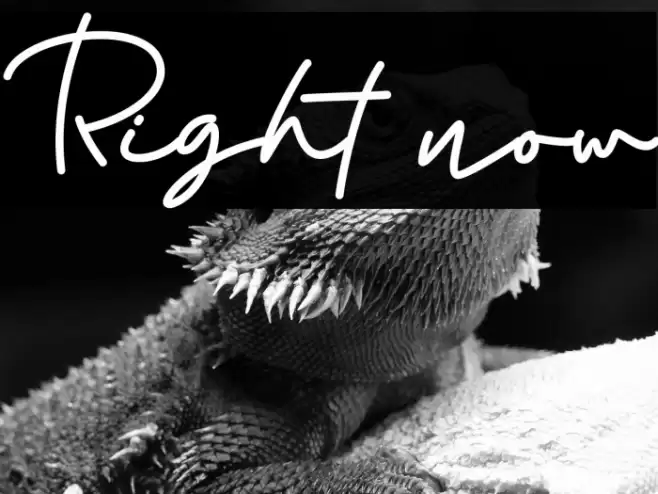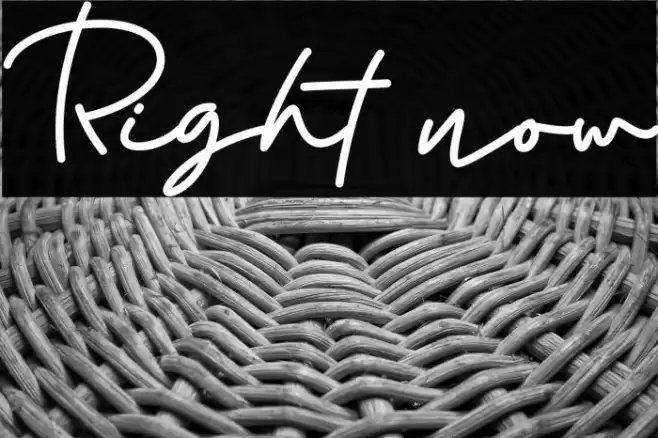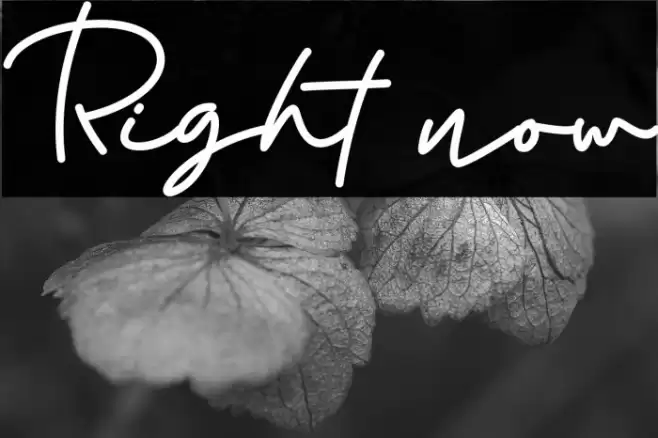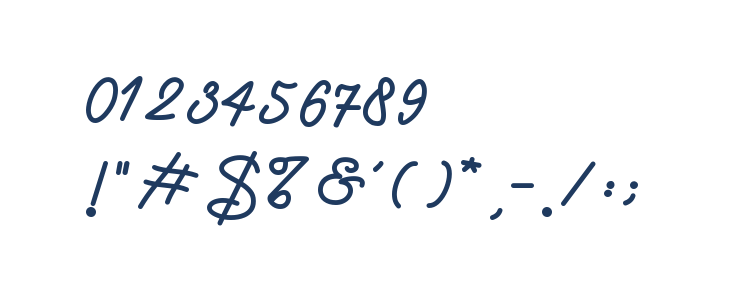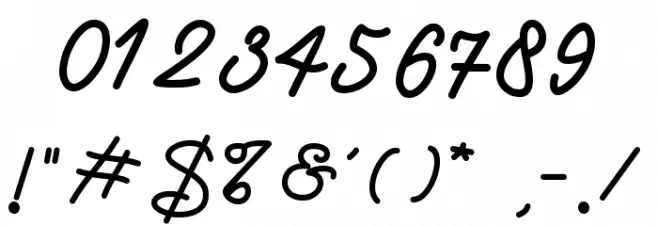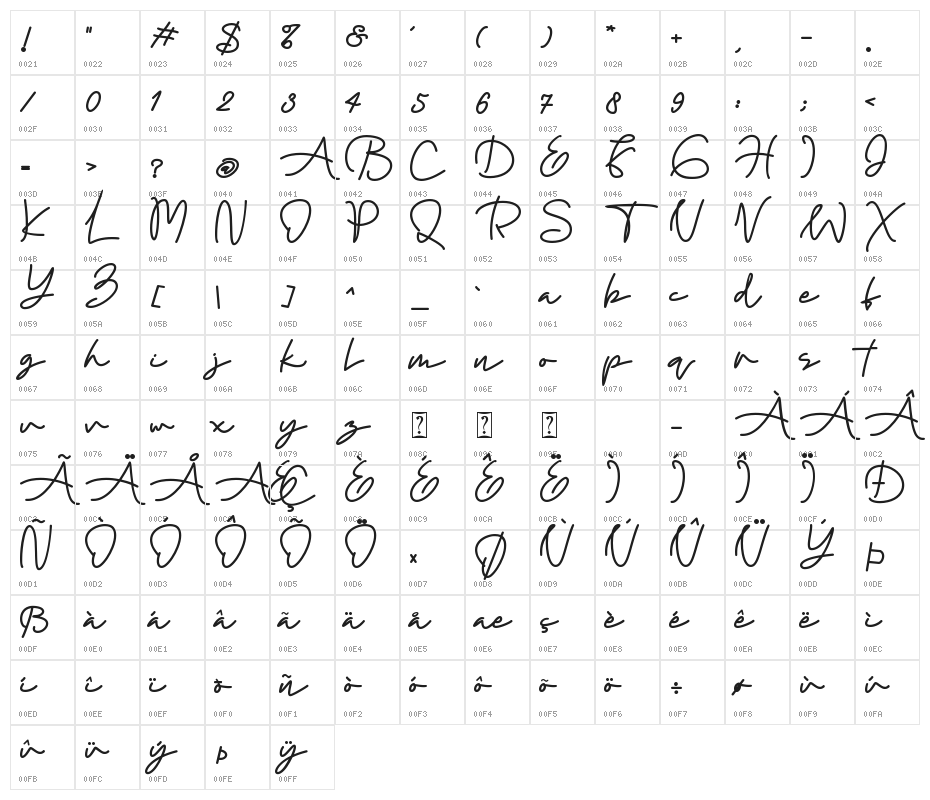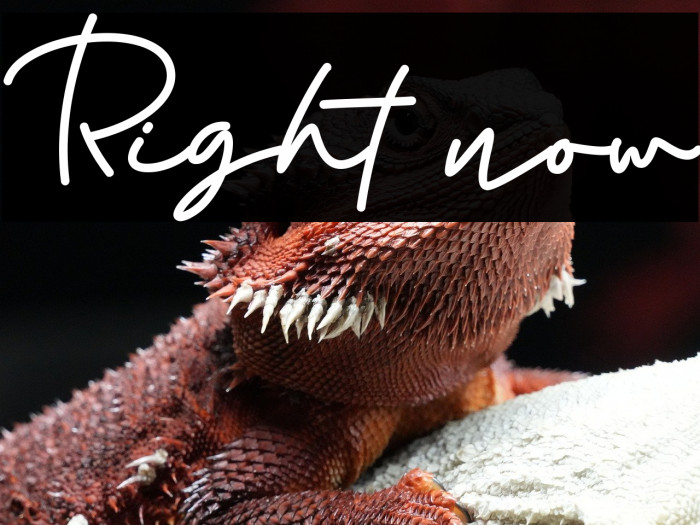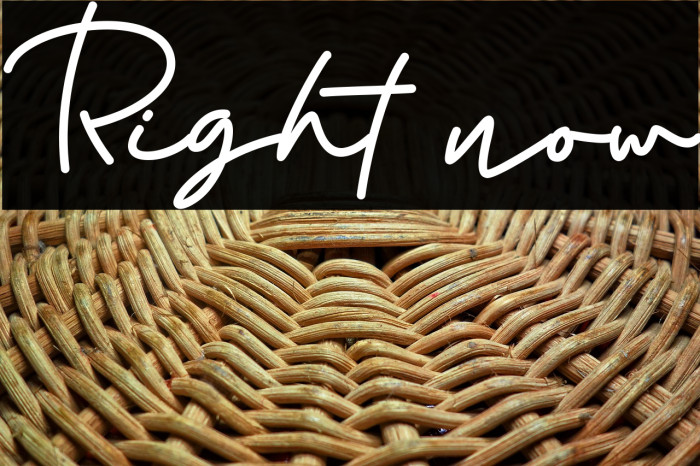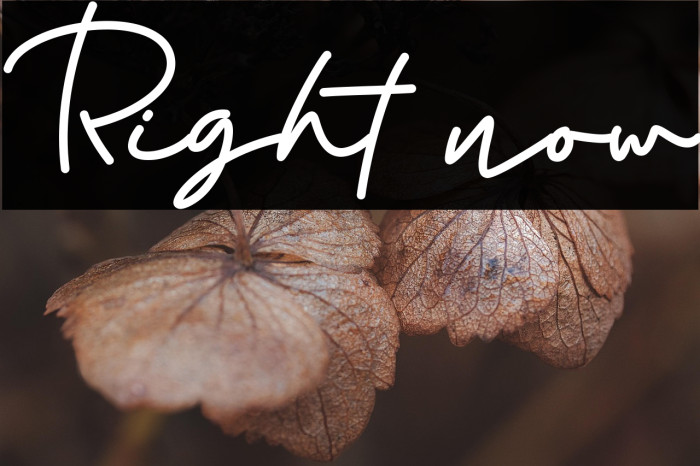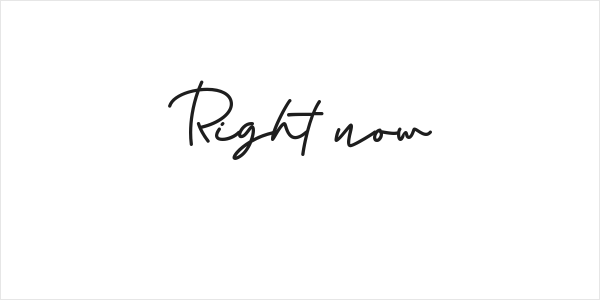
Right now Font
Right now Description
This font features a lively and flowing script style, characterized by its cursive, handwritten appearance. The uppercase letters are elegantly looped and connected, giving a sense of fluidity and motion. Lowercase letters maintain a consistent style, with smooth curves and a natural, informal look. The numerals are bold and clear, ensuring readability while maintaining the overall aesthetic. Special characters are creatively integrated, enhancing the font's versatility. This font exudes a personal and artistic touch, making it suitable for creative and expressive projects.
A lively, cursive script font with a handwritten, flowing style from Regular fonts.
- Proposed Projects: Ideal for wedding invitations, greeting cards, personal branding, and artistic projects.
- Use Case: Logos, Invitations, Personal Branding